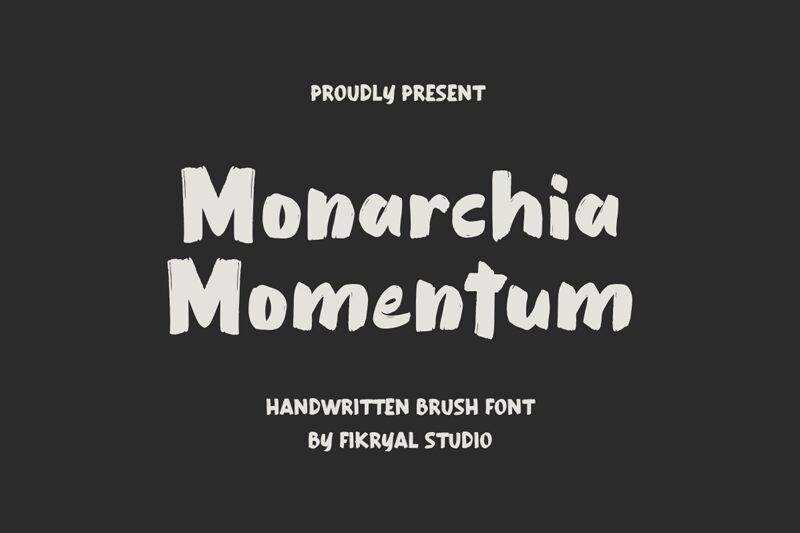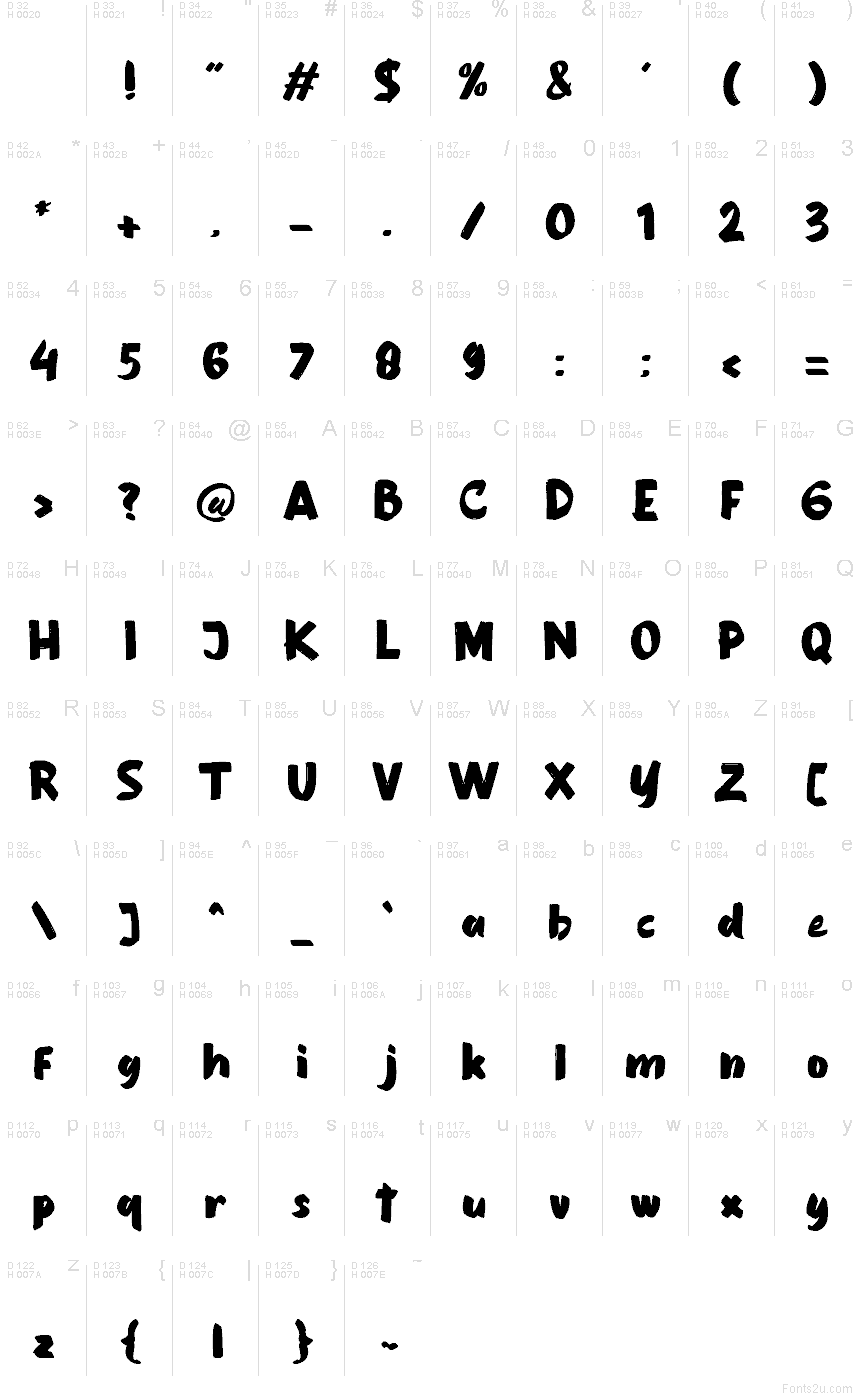
Monarchia Momentum
Monarchia Momentum font by Fikryal studio is a free brush font that hits with the weight of a paint-loaded marker and the bounce of quick, confident handwriting. Thick strokes, soft corners, and slightly staggered letter shapes give it a friendly, high-energy feel, as if the words were just swiped across the page. It’s bold, legible, and full of motion, making every word feel a bit louder and more alive.
Using Monarchia Momentum, you can push personality to the front in logos, streetwear graphics, food packaging, poster headlines, social media promos, and bold signage. This free font thrives at larger sizes where its inky texture and chunky rhythm can really breathe. Pair it with a clean geometric sans in small text to keep layouts grounded while Monarchia Momentum handles all the attitude on top.